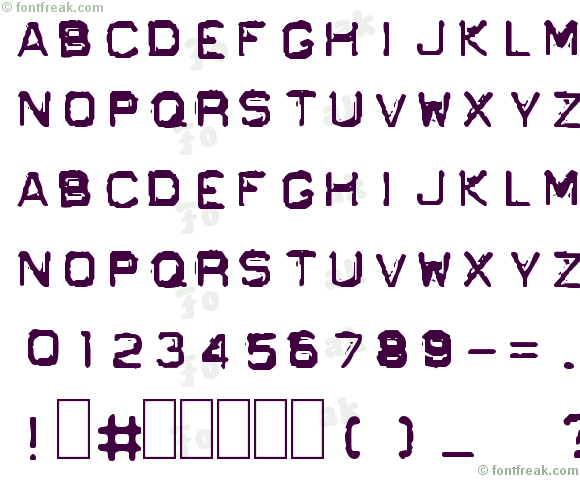
GF Ordner Inverted
GF Ordner Normal
Ordner is a striking display font designed by Lorenz Goldnagl, released as freeware in 1998. This unique typeface falls into the category of decorative fonts, characterized by its bold and unconventional style. The Ordner font features an inverted structure that adds an intriguing visual twist, making it stand out in various design contexts. Its stroke weight is varied, providing a sense of depth and dynamism, while the spacing is thoughtfully designed to enhance readability despite its artistic flair. The decorative elements include sharp angles and unexpected curves, giving it a playful yet modern aesthetic.
This font is ideal for a variety of creative projects. It works beautifully on movie posters, where its distinctive style can capture attention and convey a sense of excitement. Ordner is also well-suited for branding efforts, particularly for businesses looking to establish a strong visual identity, such as trendy cafes or innovative startups. Additionally, it can elevate wedding invitations, offering a unique touch that reflects personality and style. Graphic designers will find it useful for creating eye-catching social media graphics and promotional materials that require a bold statement.
The target audience for Ordner includes graphic designers, small business owners, and content creators who seek to make a memorable impression with their projects. By utilizing this font, they can infuse their work with creativity and originality.
What sets the Ordner font apart is its ability to blend artistic expression with functionality. Its unconventional design offers versatility, making it a compelling choice for various applications. For those interested in adding a distinctive edge to their typography, the Ordner font free download is an opportunity not to be missed. With its unique attributes and vibrant personality, this font can truly bring any design to life.